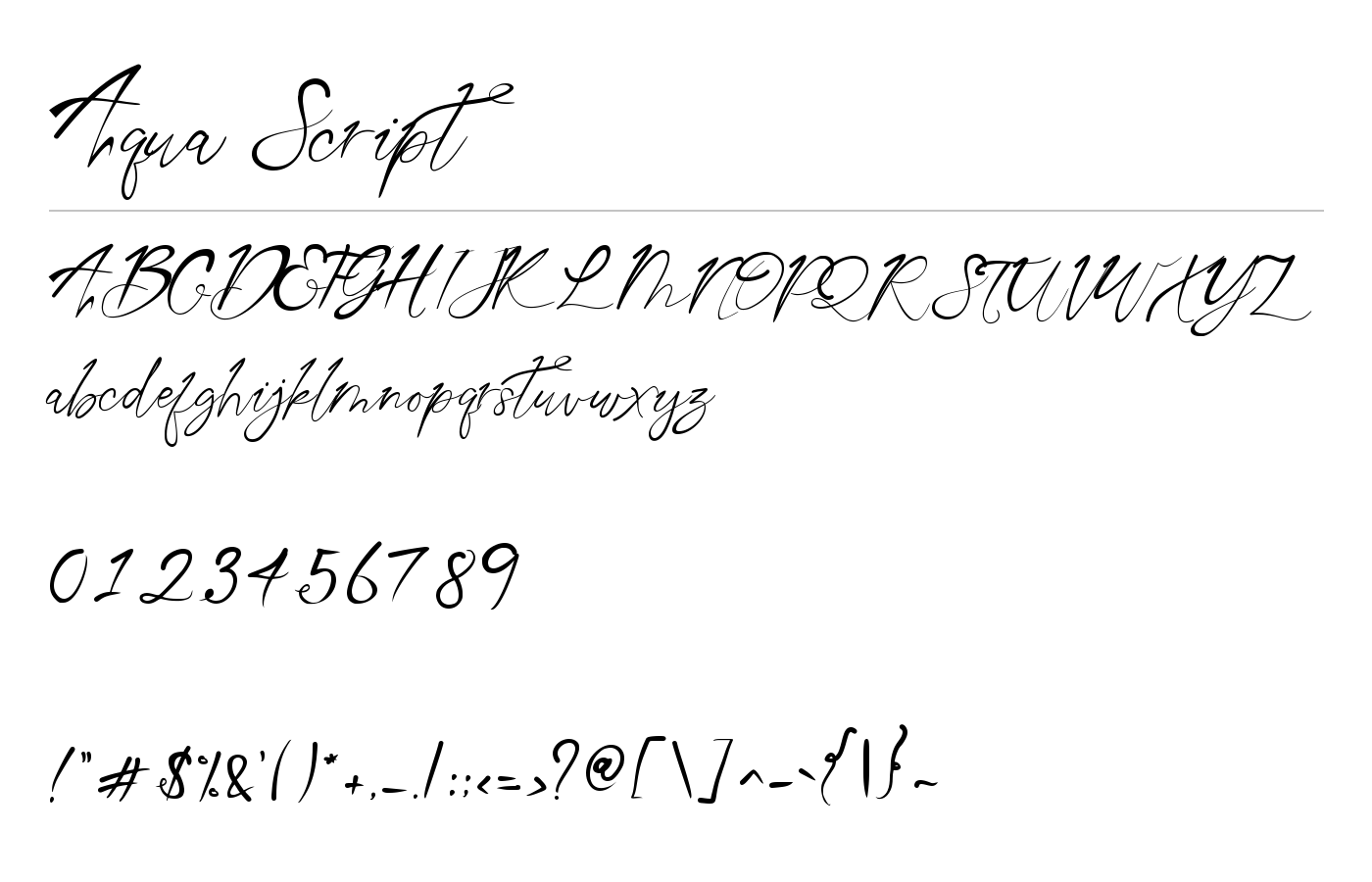
Aqua Script is an elegant, light-weight script font with a refined, flowing style that mimics natural handwriting. Its slender, slightly calligraphic strokes and graceful curves give it a sophisticated yet approachable character, making it ideal for invitations, branding, and projects seeking a personal, stylish touch. This font works beautifully in designs that want to convey elegance and creativity with a modern flair.
Aqua Script Font
About Aqua Script Font
| Font family | Aqua Script Font |
| Designer | Andrean Design |